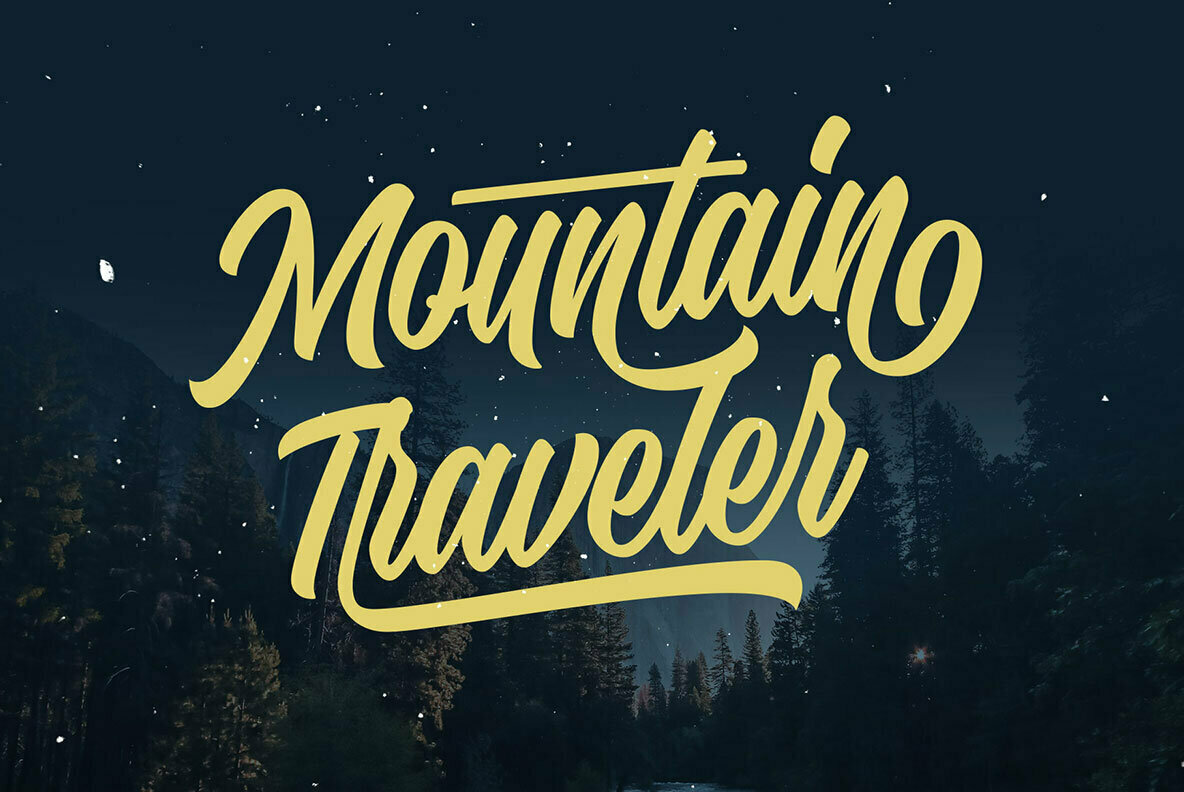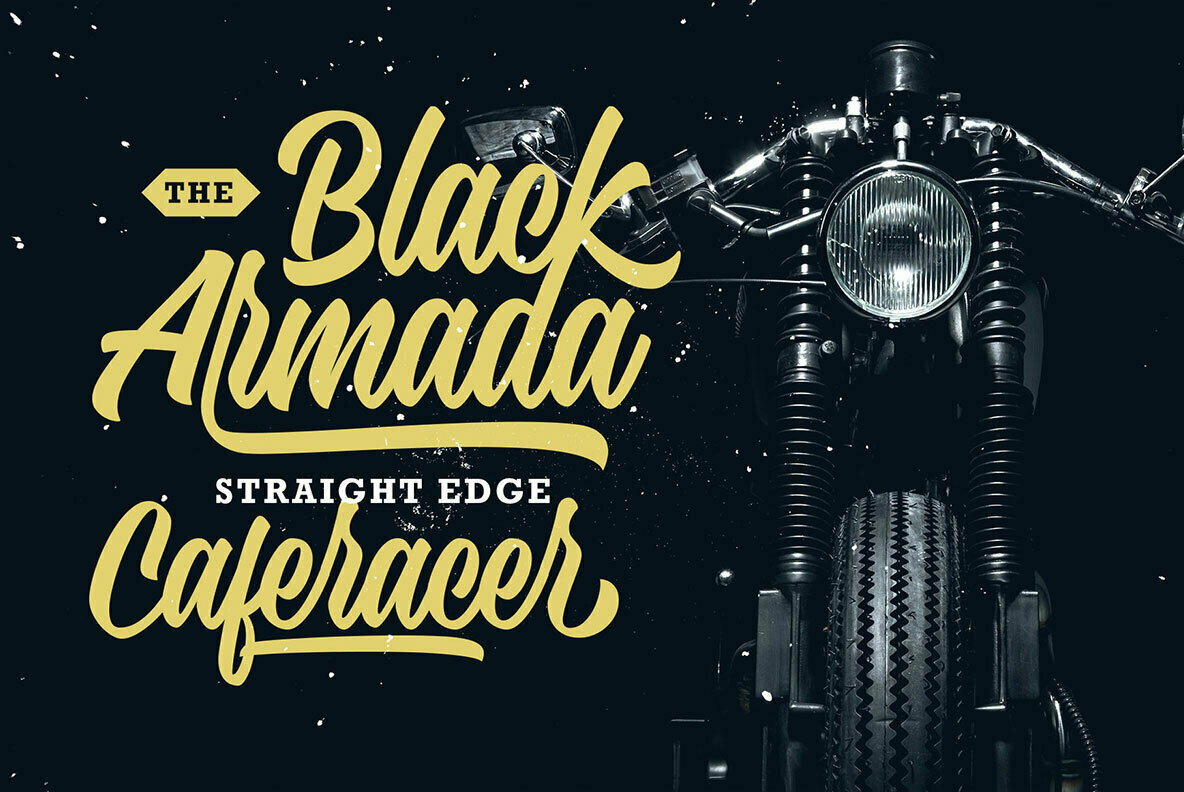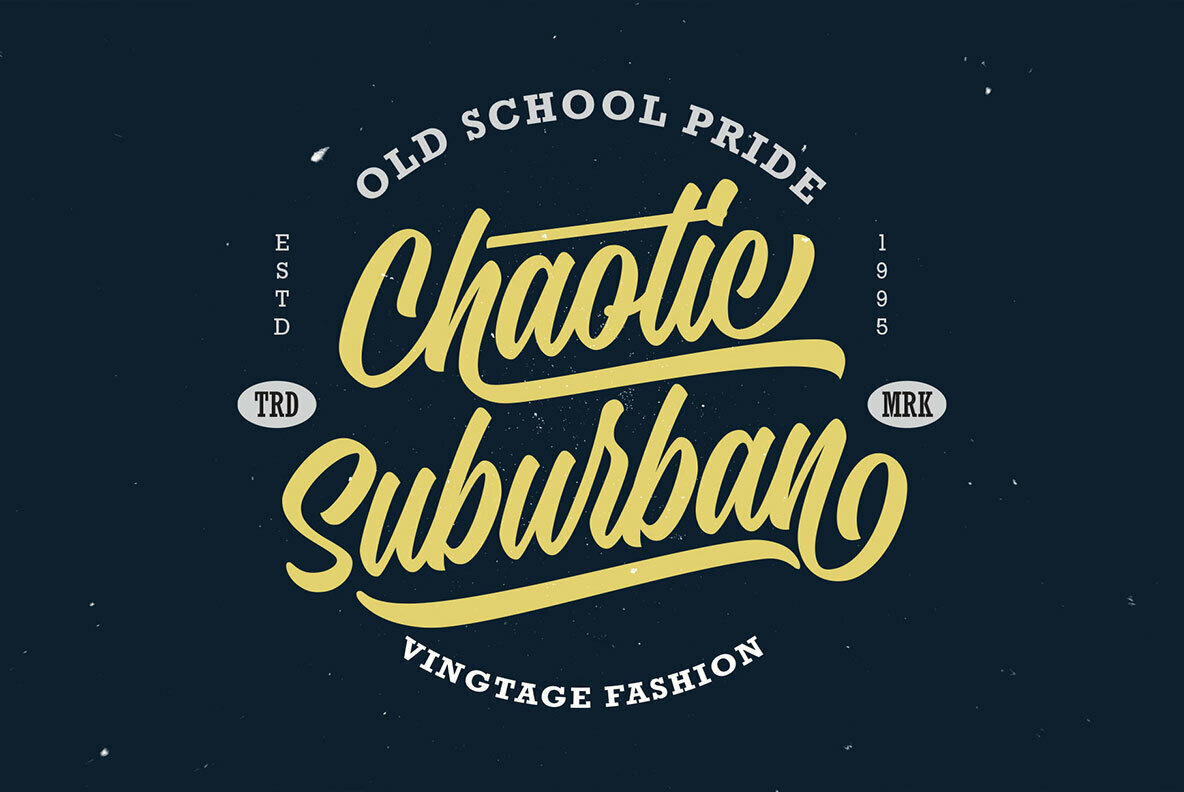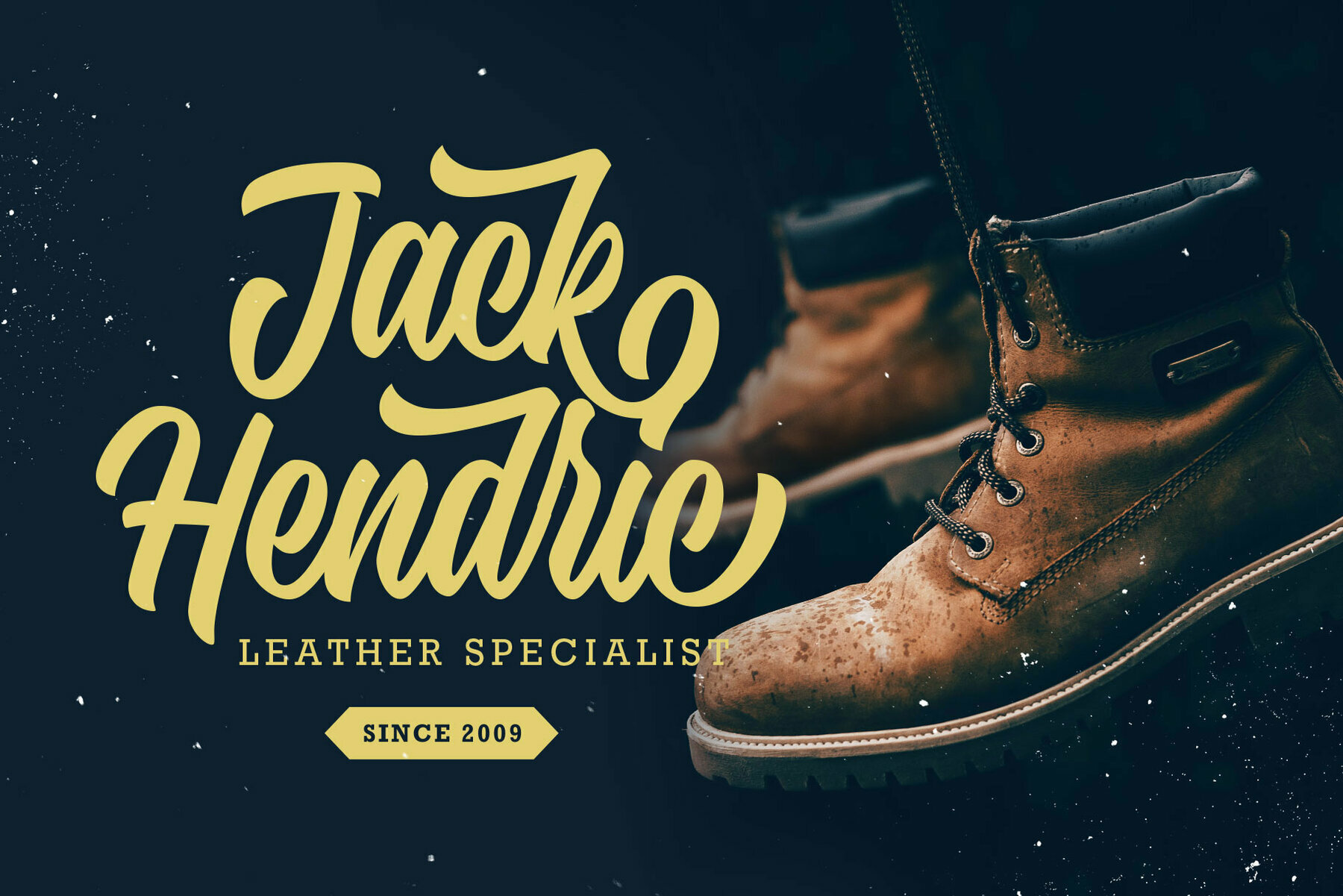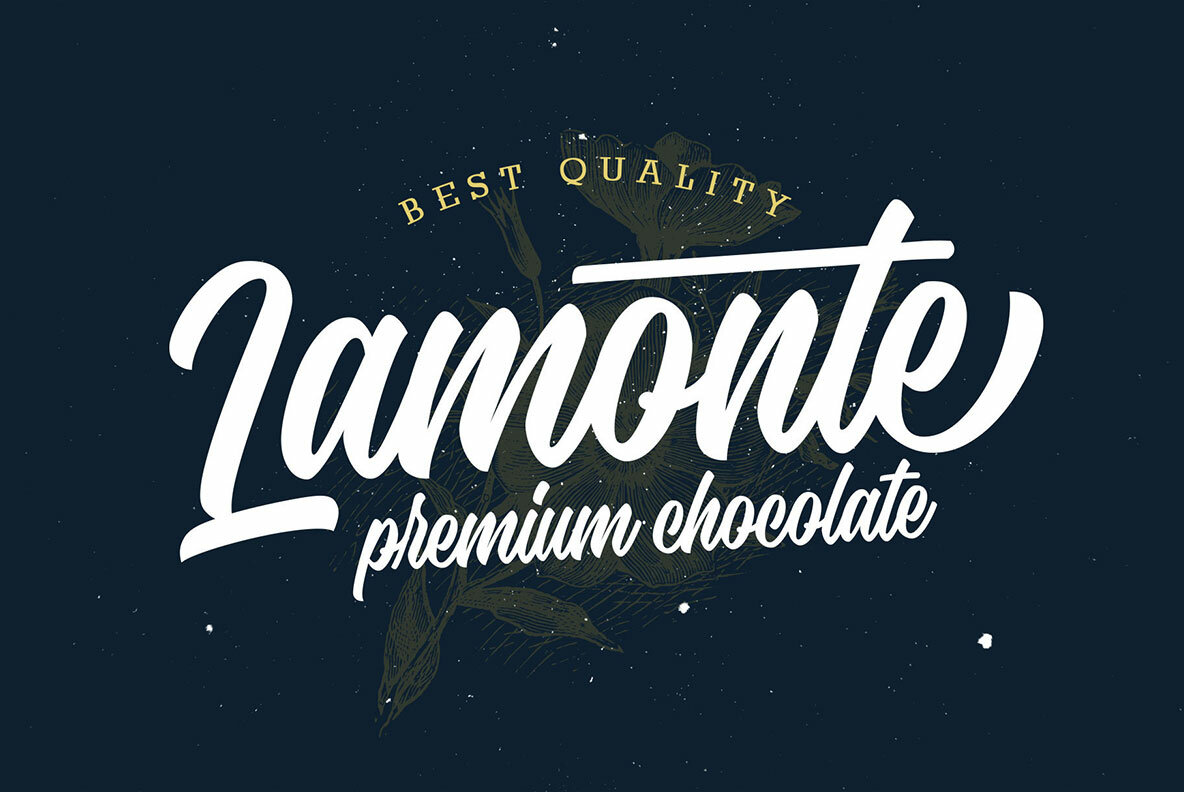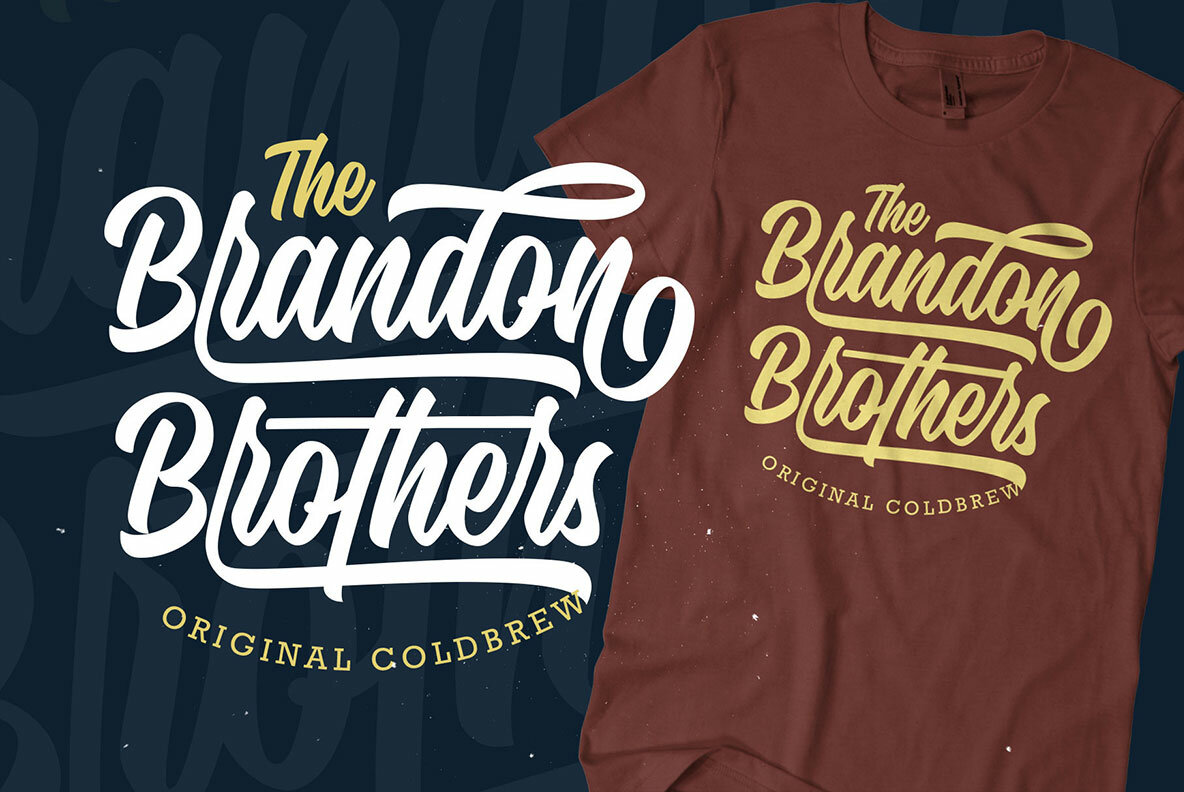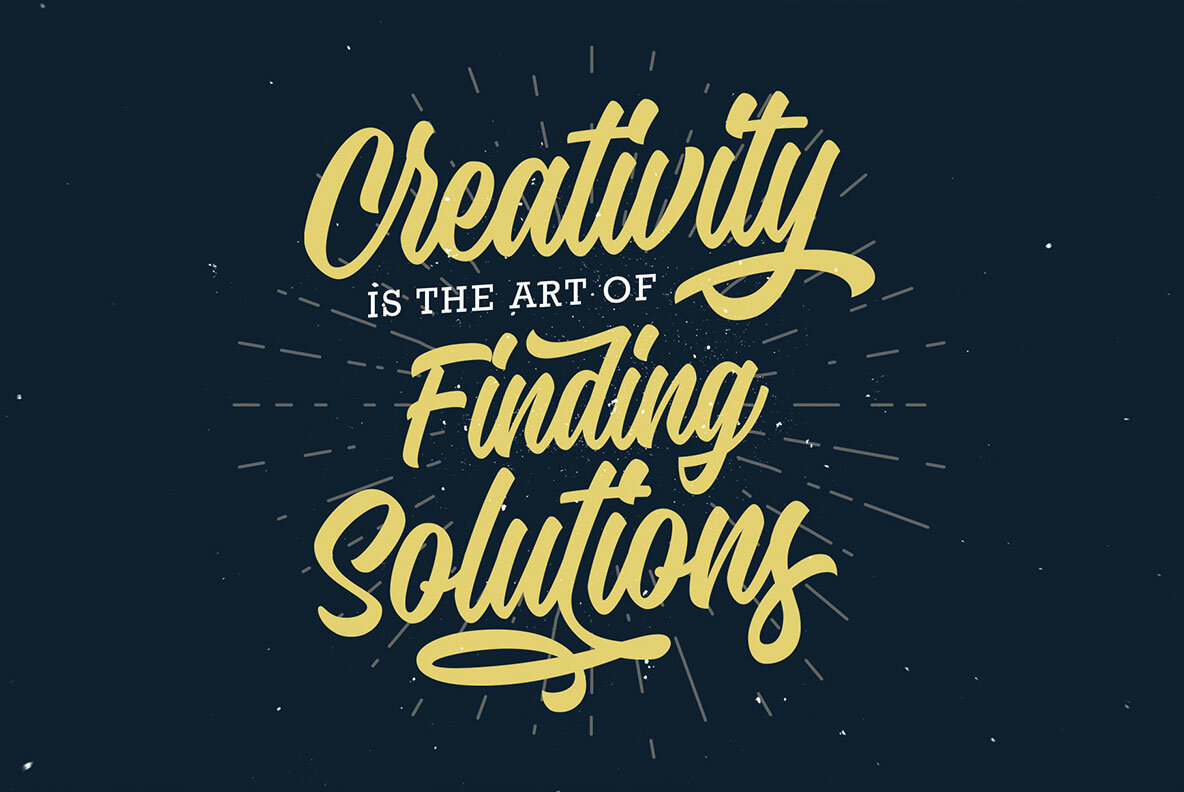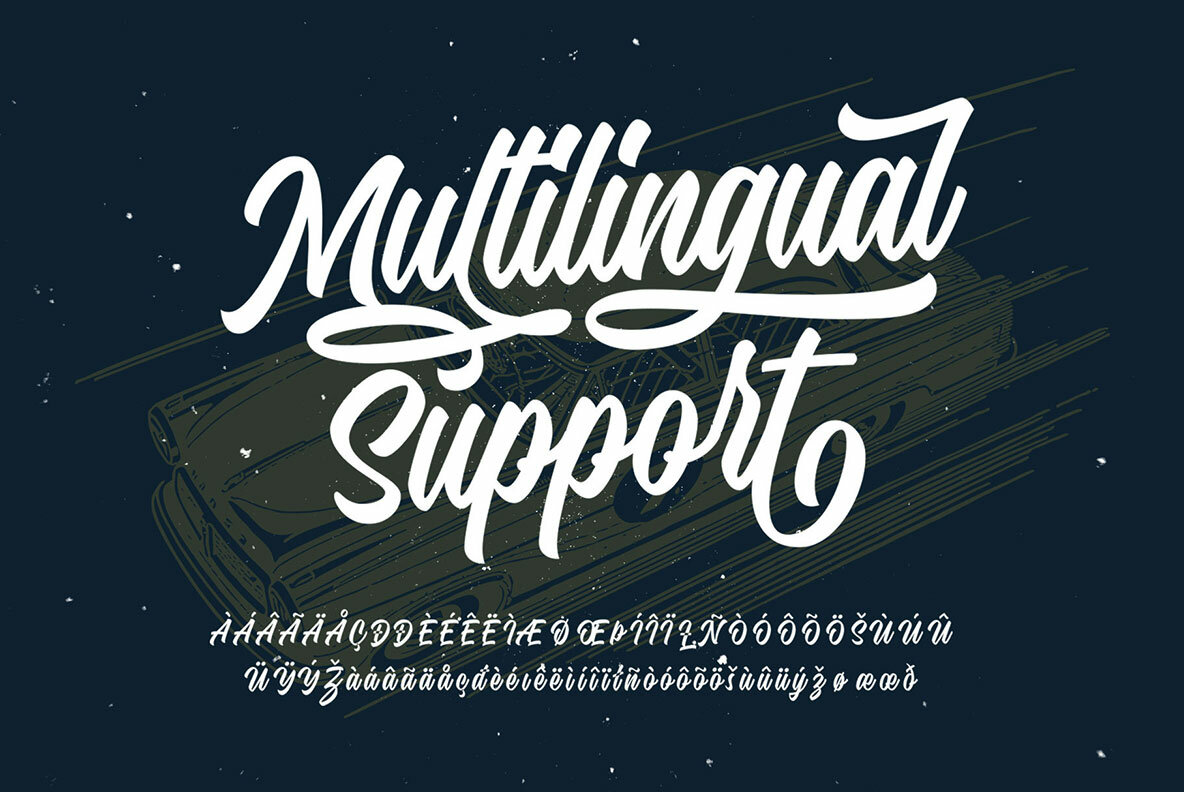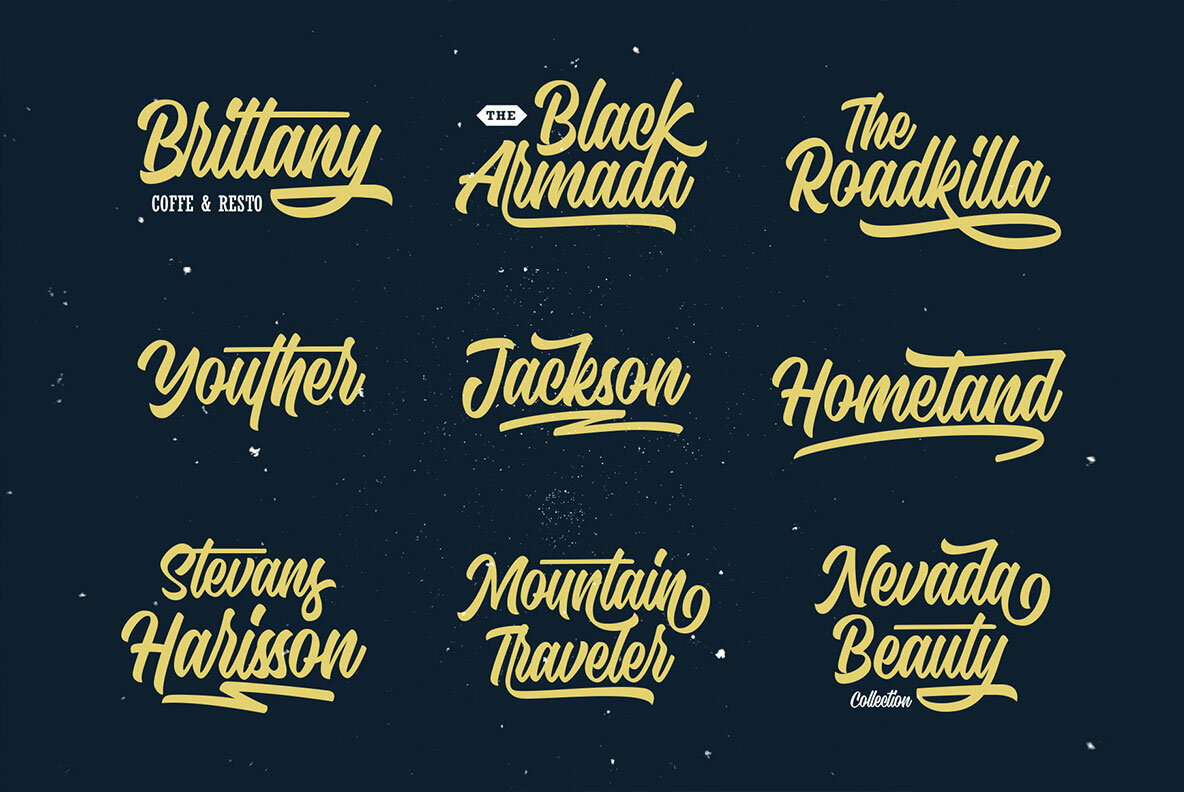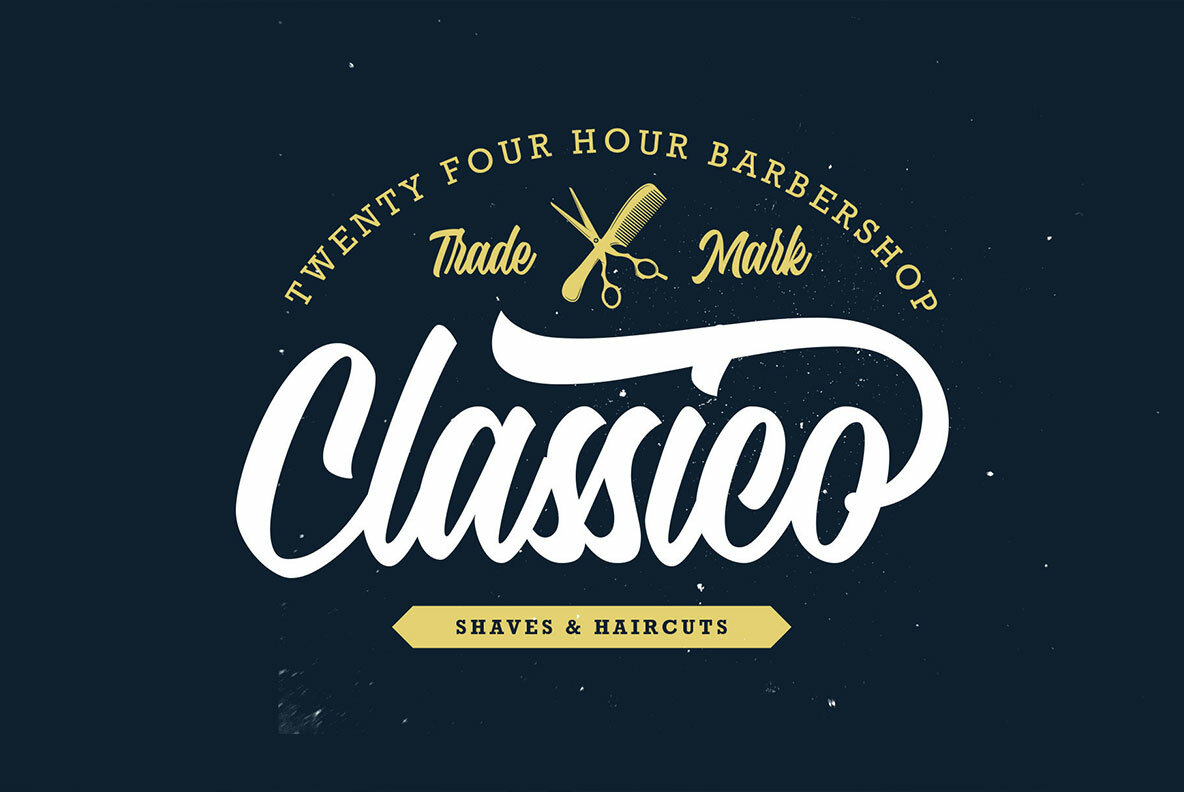
Hadnich Font
Hadnich Regular
Inspired by the classic typography of vintage brush lettering, Hadnich by Ahmad Ramzi Fahruddin offers a versatile and stylish script font perfect for a range of design projects. This font is meticulously crafted, drawing on the elegance of old-school sign painting while embracing a modern touch. Complete your font library with this dynamic brush script that excels in various applications such as logos, signage, apparel, labels, and posters. The font's impressive range ensures diverse typographic expressions, thanks to a wide array of alternate characters that are easily accessible.Hadnich: A Vintage Brush Script with Modern Appeal